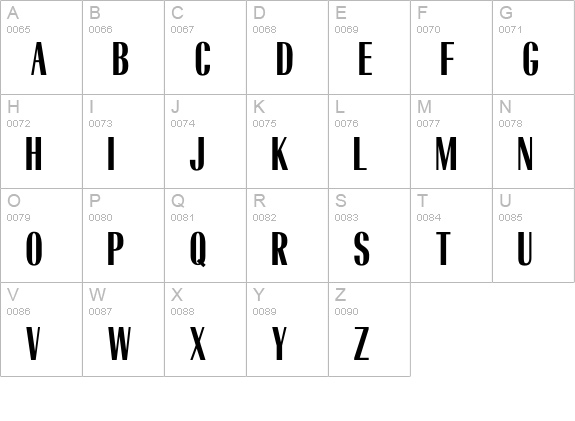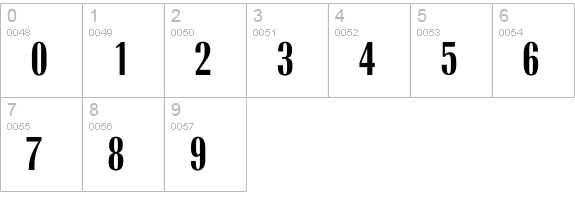
OPTIRadiantBold-Condensed Font Details
OPTIRadiantBold-Condensed is a distinctive, condensed-width variant in the OPTIRadiantBold typeface family \xE2\x80\x94 well suited to design and typography projects.
Introducing OPTIRadiantBold-Condensed font, a sleek and modern typeface that exudes confidence and sophistication. With its bold and condensed design, this font is perfect for making a bold statement in your designs. The sharp angles and clean lines give OPTIRadiantBold-Condensed font a contemporary edge, making it ideal for a wide range of projects. And the best part? OPTIRadiantBold-Condensed font is completely free to download at FontsMarket.com. Whether you're creating eye-catching posters, striking headlines, or stylish branding materials, this font will elevate your design to the next level. Don't miss out on the opportunity to enhance your projects with the striking aesthetic of OPTIRadiantBold-Condensed font. Download it today and unleash your creativity!